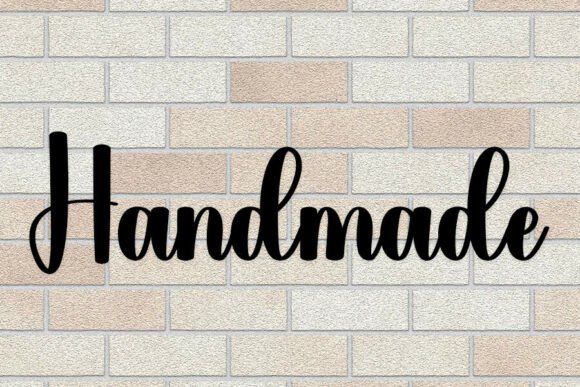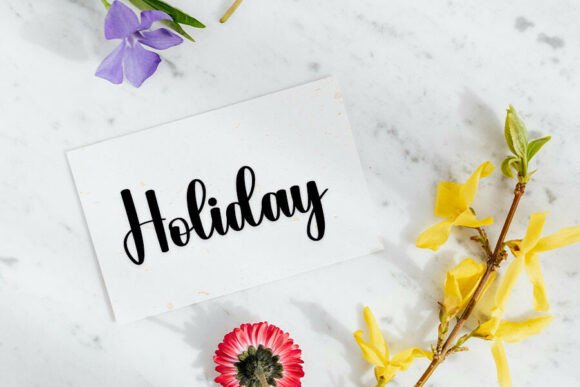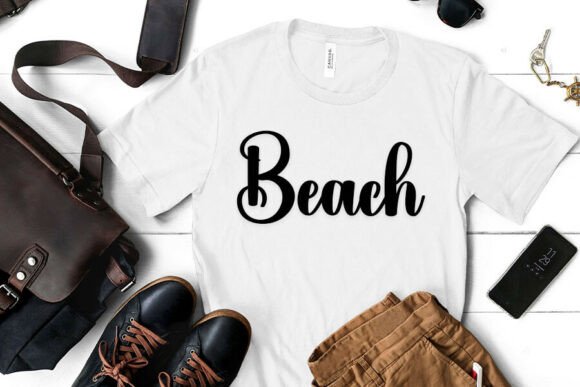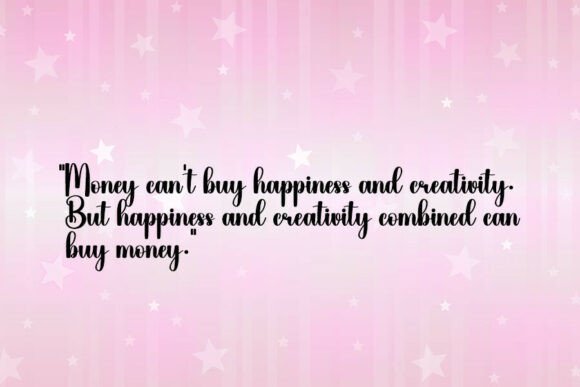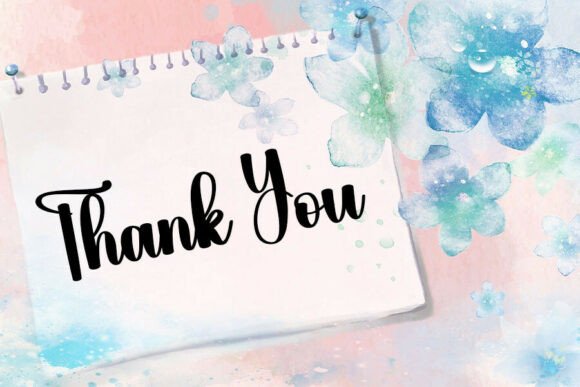
Find Your Perfect Match: Introducing Horses Font
Do you remember that moment when you’re brainstorming ideas for a project, and suddenly a vision pops into your mind? It’s a feeling that’s hard to describe, but it’s like a spark of creativity that sets your imagination ablaze. For designers, this moment is what drives us to create something truly special. And today, I’m excited to share with you a font that will help you capture that magic: Horses Font.
This sweet and cursive handwritten font is designed to add a touch of elegance and whimsy to your designs. Whether you’re working on a branding project, creating a wedding invitation, or crafting a greeting card, Horses Font is the perfect companion to help you bring your vision to life. With its gentle curves and romantic feel, this font is a valuable addition to any designer’s toolkit.
Horses Font Key Features
- Unique Characteristic: The font features a unique, hand-drawn design with a horse theme, making it perfect for equine-related projects.
Horses Font Review
Overall, I’d say the Horses Font is an interesting addition to any design project. It’s a unique font that could add some personality to a design, but it’s not without its limitations.
- Unique and eye-catching: The Horses Font is definitely one of a kind, and it could be a great choice for designers looking to add some personality to their work.
- Great for titles and headings: The font’s bold and playful nature makes it perfect for use in titles and headings, adding a touch of whimsy to a design.
- Good legibility: Despite its unique design, the Horses Font is still relatively easy to read, even at smaller font sizes.
- Not suitable for body text: Due to its bold and playful nature, the Horses Font may not be the best choice for body text, as it can be difficult to read in large quantities.
Overall, I’d say the Horses Font is a fun and unique addition to any design project, but it’s not without its limitations. If you’re looking for a bold and eye-catching font for use in titles and headings, the Horses Font may be a good choice. However, it’s not the best choice for body text, and it may not be compatible with all systems.
Getting the Most Out of Horses Font
To get the most out of Horses Font, consider the following tips:
- Use the font in combination with other decorative fonts for a unique look.
- Use the font in titles and headings to add a touch of elegance.
Horses Font is commonly used in:
- Formal event invitations and announcements.
- Use the font for the title, “Wild and Free”, in a bold and large size to grab attention.
- Employ the font for key phrases like “Run with the Wind” or “Feel the Freedom” to add a sense of movement and energy.
- Pair the Horses Font with illustrations of horses, flowers, or clouds to create a whimsical atmosphere.
- Use a pastel color palette with white or light gray background to emphasize the elegance and playfulness of the font.
- Choose a meaningful quote, such as “The greatest glory in living lies not in never falling, but in rising every time we fall” and set it in the Horses Font.
- Adjust the font size and style to create visual balance and emphasis on key words.
- Pair the Horses Font with a minimalist background and subtle textures to create a sense of sophistication.
Creative Project Ideas Using Horses Font
Project 1: Whimsical Horse Poster
Create a captivating poster featuring a horse as the main subject, using the Horses Font for the title and key phrases. This font adds a playful and elegant touch to the design.
How to use Horses Font:
Project 2: Horses Font Quote Art
Design a quote art piece that features an inspiring quote about horses, using the Horses Font to add a touch of sophistication and elegance.
How to use Horses Font: